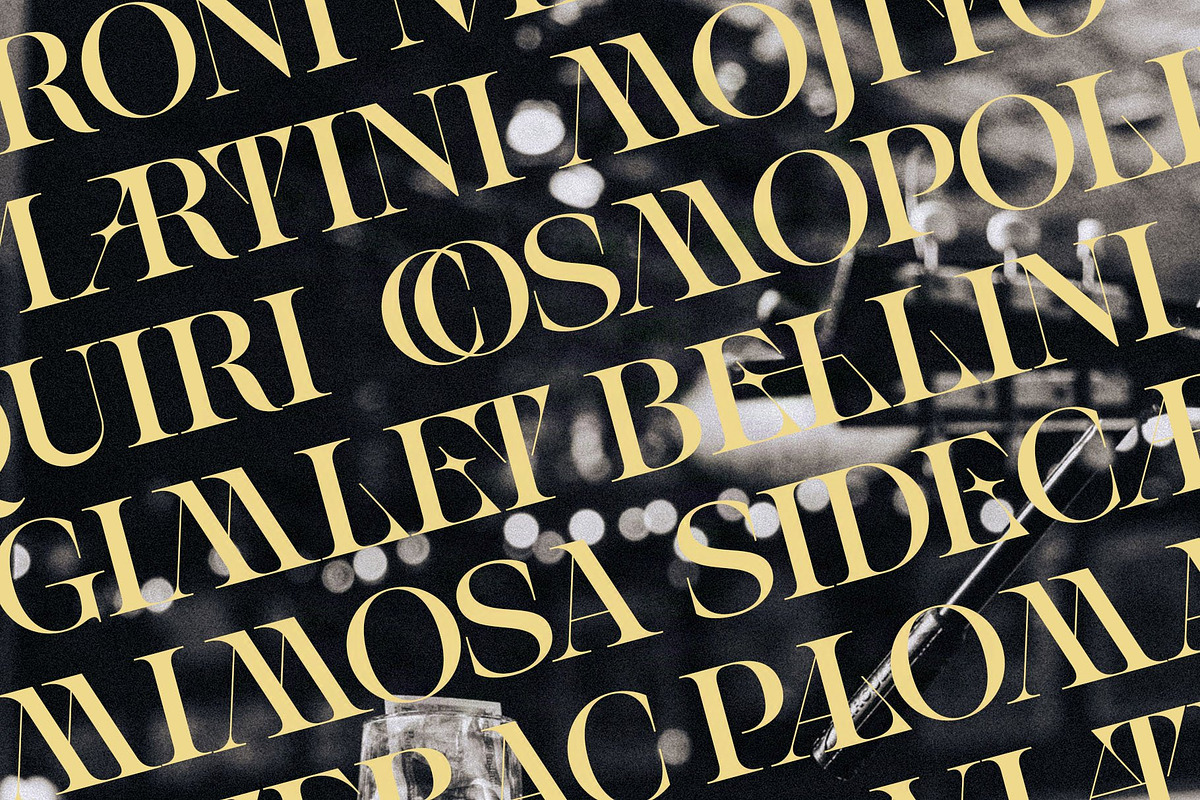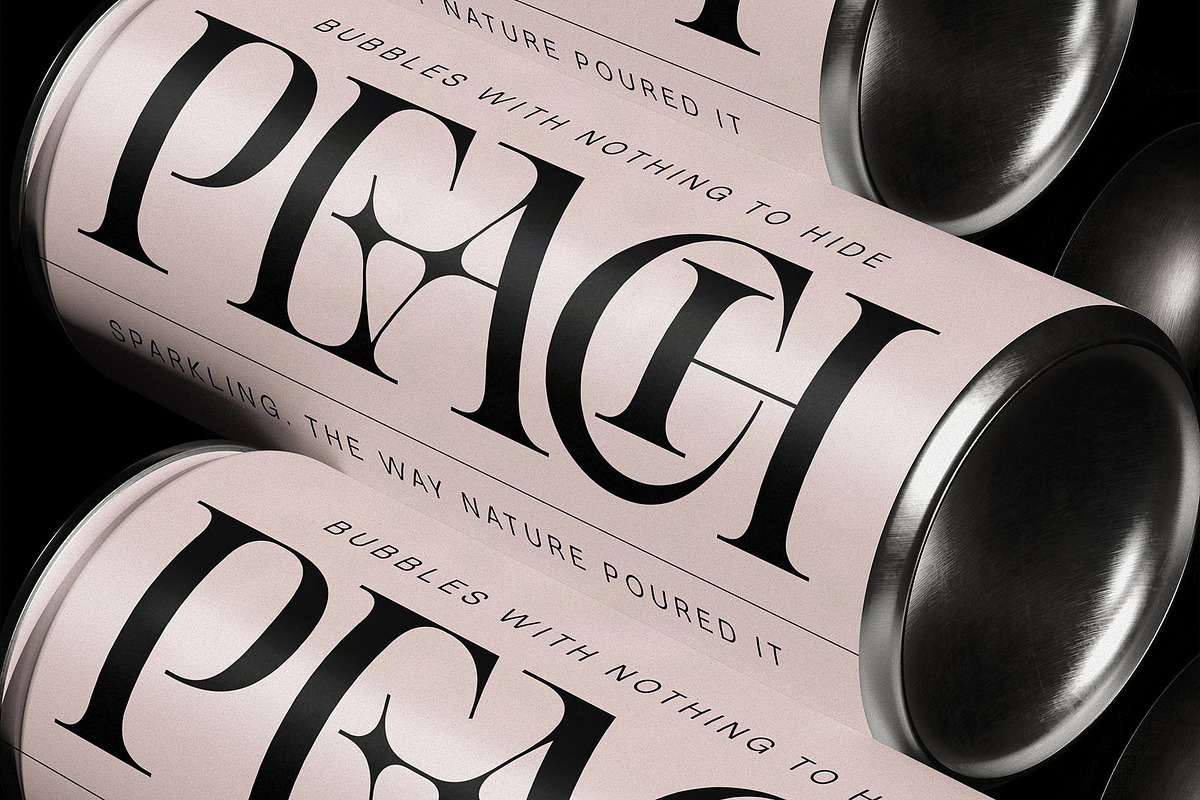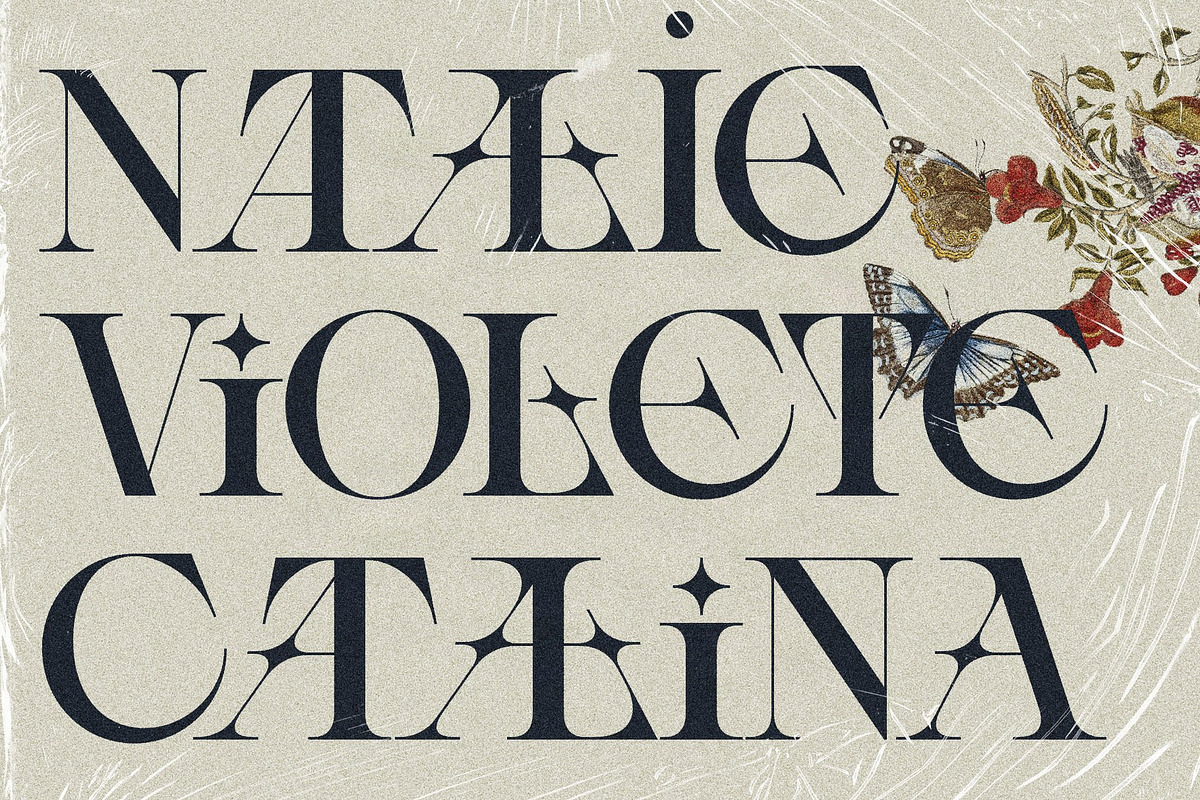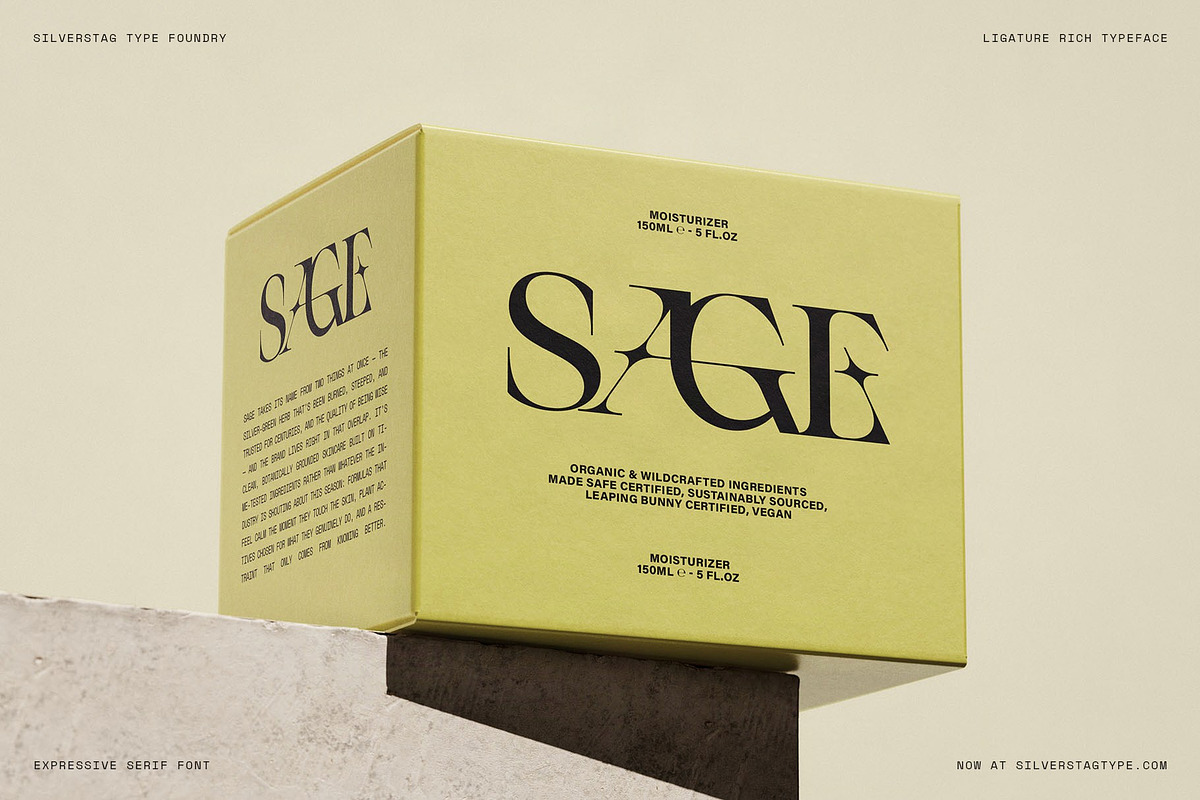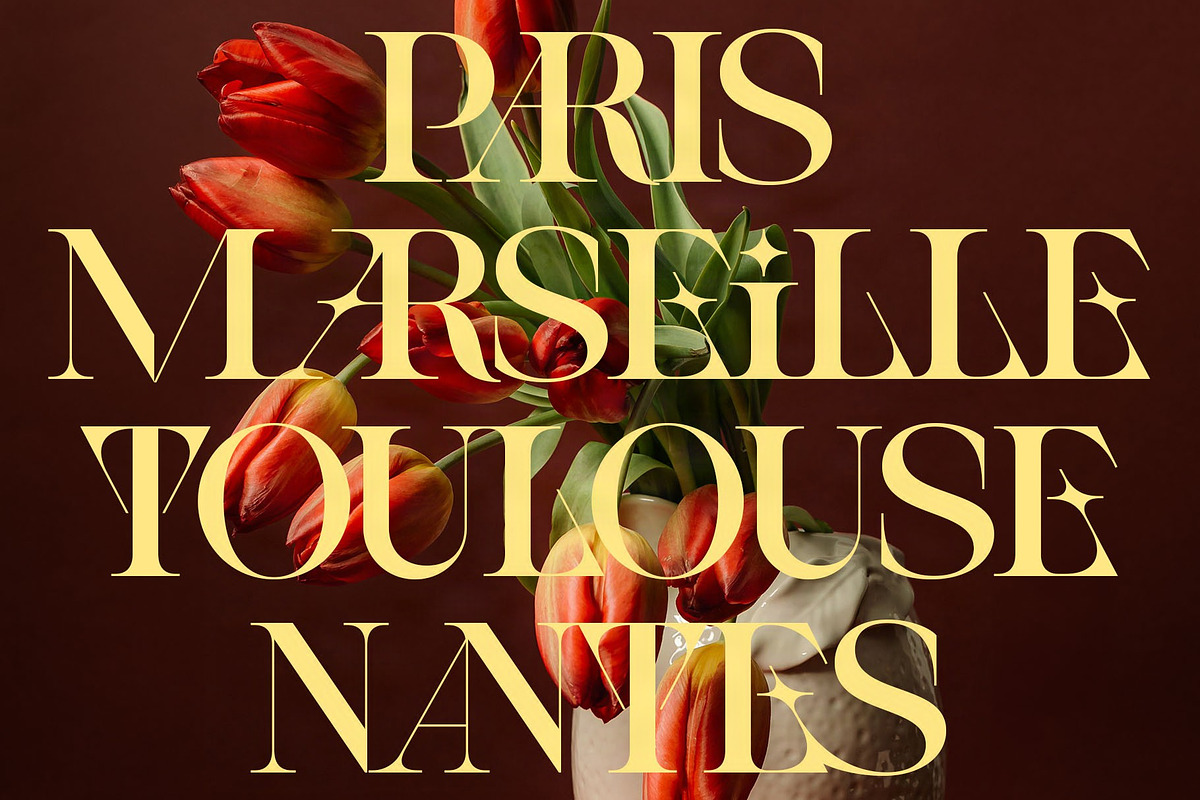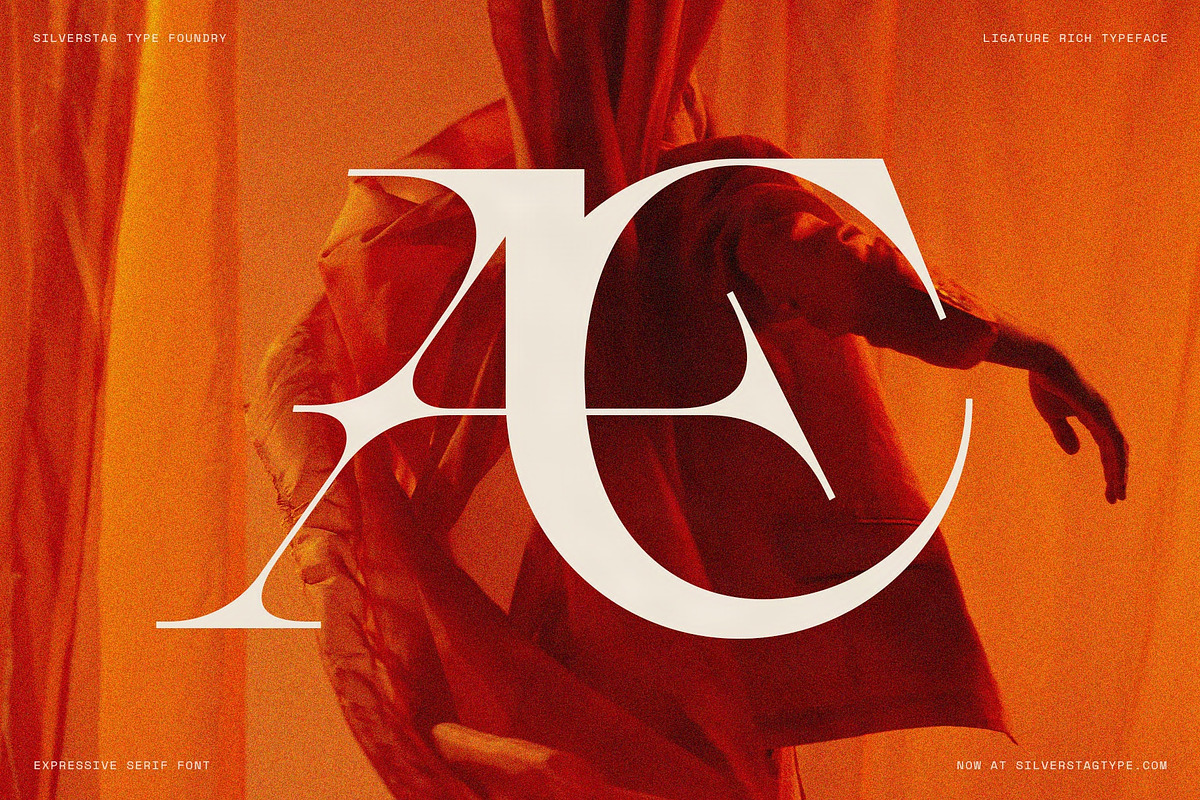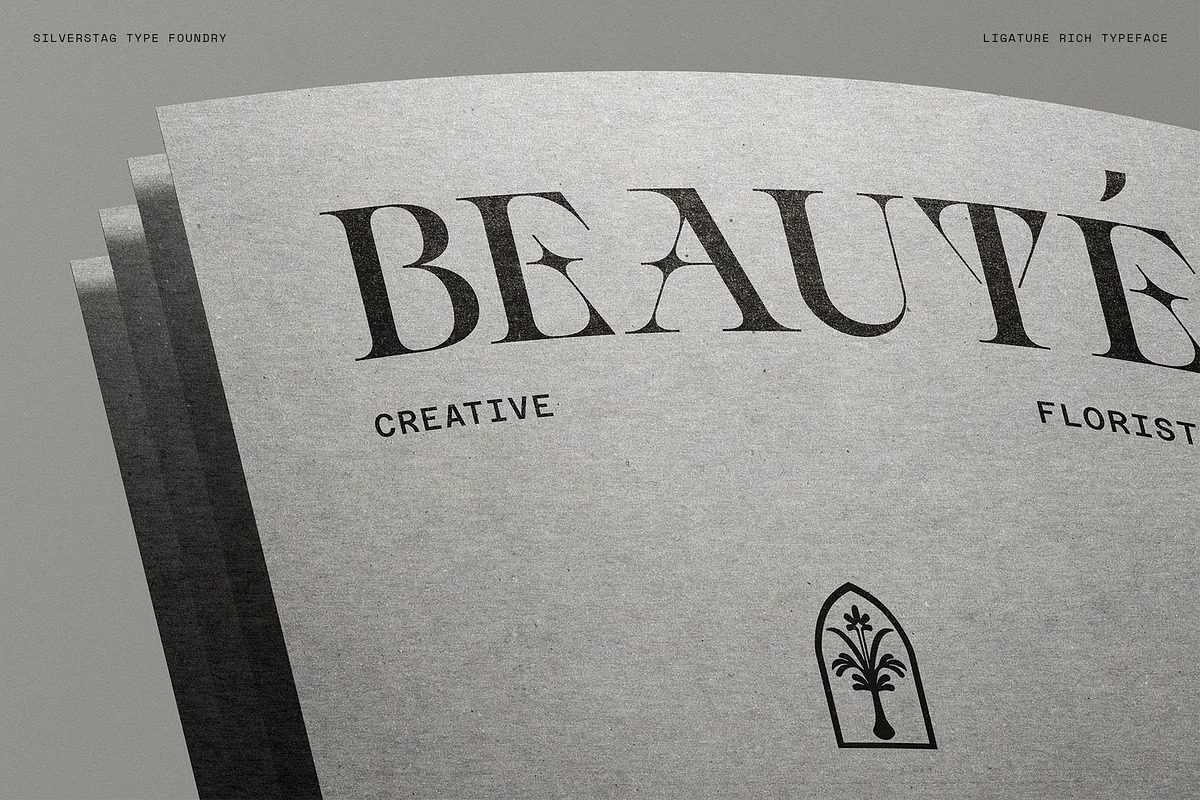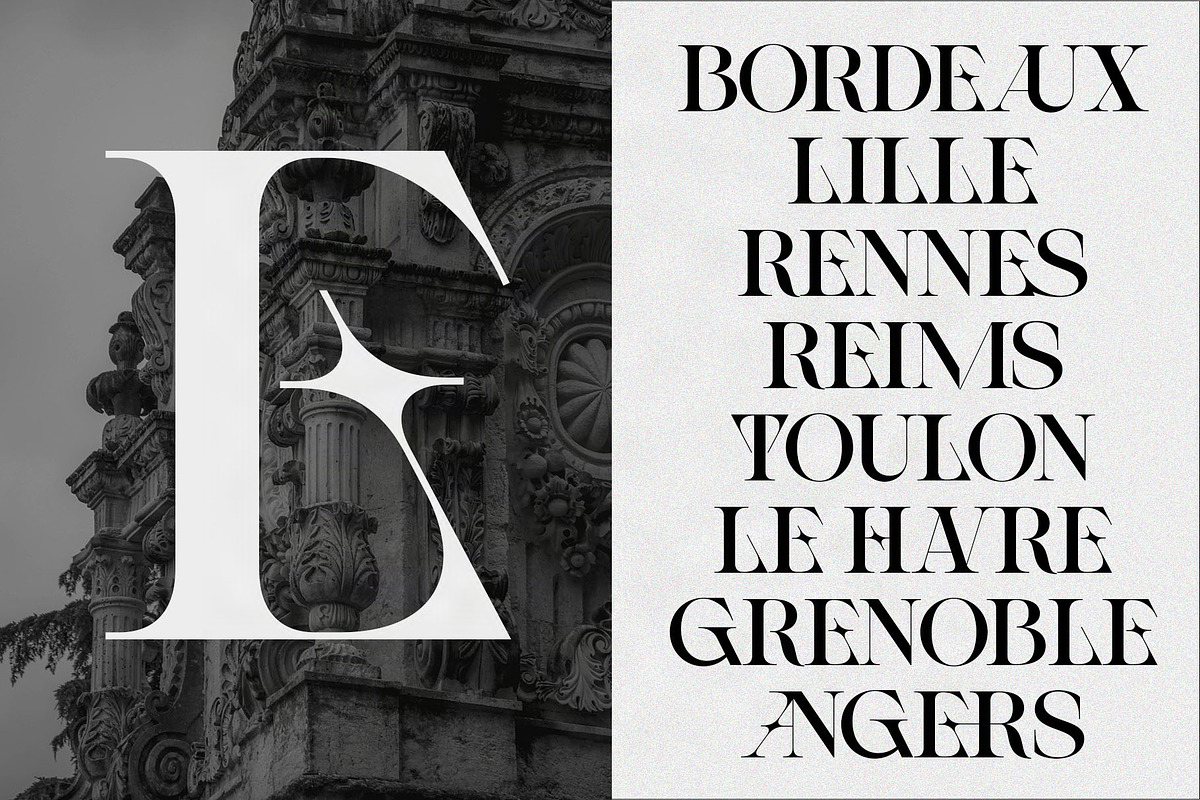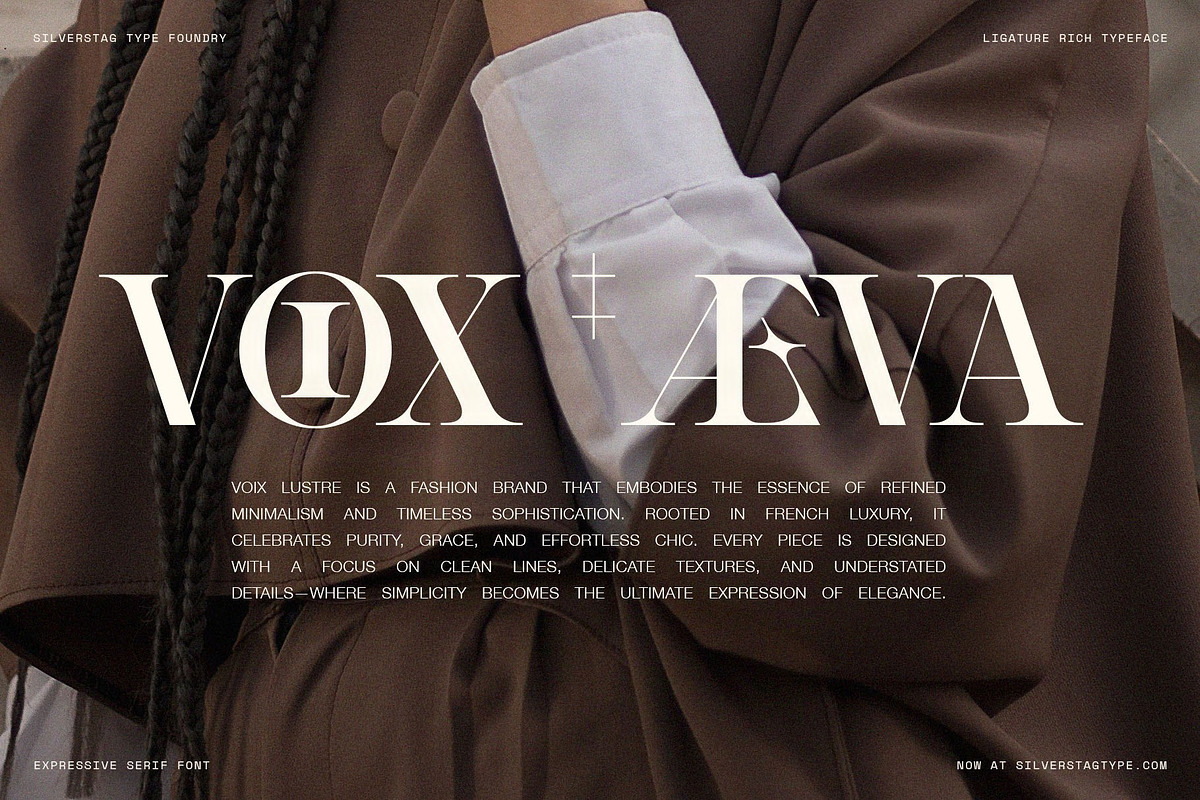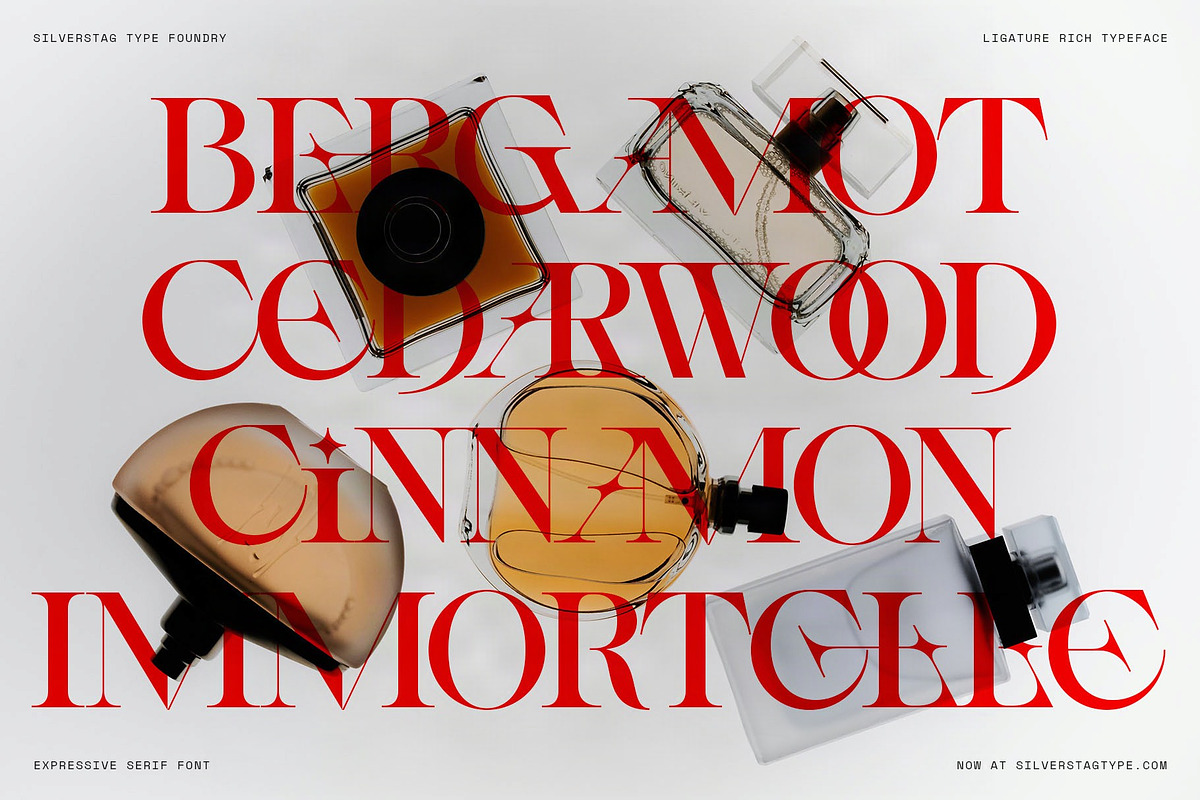
Spanish Archer - Ligature-Rich Font
SLTF Spanish Archer is an uppercase-only display serif typeface built around one idea: letters that refuse to stand alone. With over 200 ligatures connecting, overlapping, and locking characters into each other, every word set in Spanish Archer becomes a small piece of custom lettering - no manual kerning tricks, no outline editing, just type and watch the pairs find each other.
Underneath the expressive surface sits a disciplined high-contrast serif - hairline joins, confident stems, and sharp wedge details that hold up in print and on screen. At display sizes the ligatures do the talking; the result works equally well as a wordmark, a poster headline, a wine label, or an editorial opener that needs to stop the reader mid-scroll.
Because the ligatures are built as standard OpenType features, they activate automatically in any modern design app - Adobe Illustrator, Photoshop, InDesign, Figma, Canva, and beyond. The pairs appear from the very first keystroke, and switching ligatures off reveals a cleaner, classic display serif underneath. Two typefaces in one decision.
SLTF Spanish Archer supports over 100 languages, making it ready for international branding work straight out of the file.
Logos and wordmarks
Branding and packaging
Editorial and magazine design
Posters and headlines
Fashion, beauty, and luxury brands
Wine, spirits, and food labels
Key features:
Uppercase-only display serif
200+ standard ligatures
Support for 100+ languages